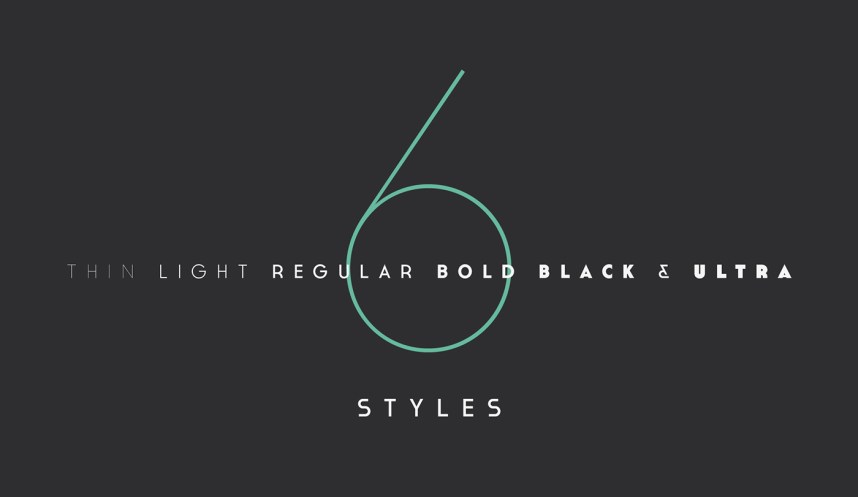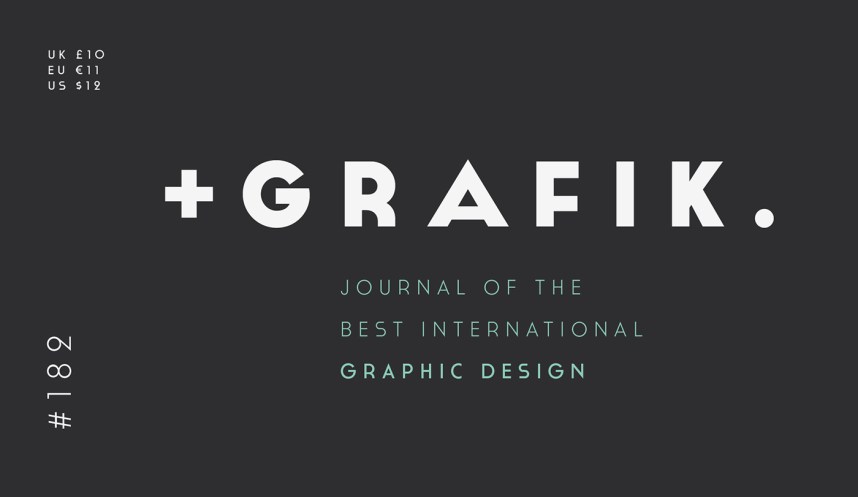
CASSANNET PLUS
CASSANNET PLUS Font was designed and shared by atipo ®. This is a Sans Serif Font nice and professional, it includes 6 Styles: Thin, Light, Regular, Bold, Black & Ultra.CASSANNET PLUS is perfect for logotypes, posters, cards, menus, product packaging and other printables, as well as web applications. The swashes and alternate letters will add a finishing touch to every logo or headline and the sans/serif fonts are ideal when you are in need of a subtext.